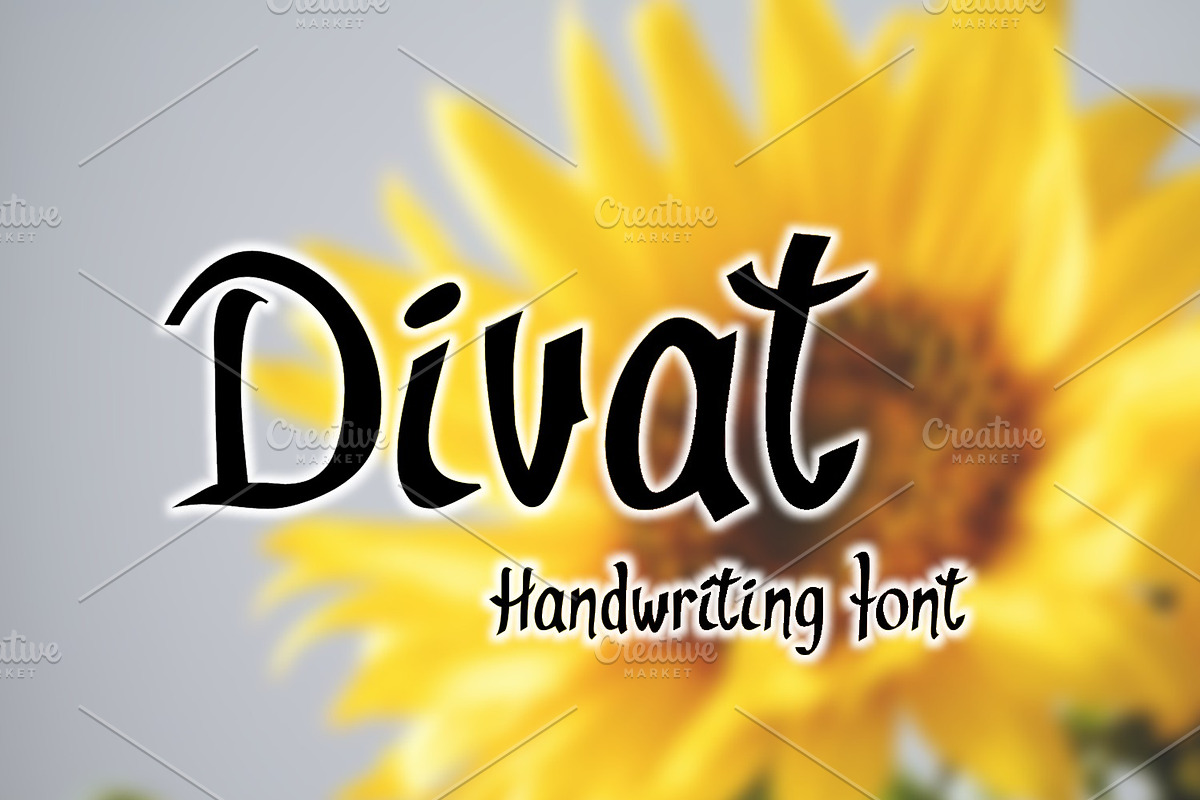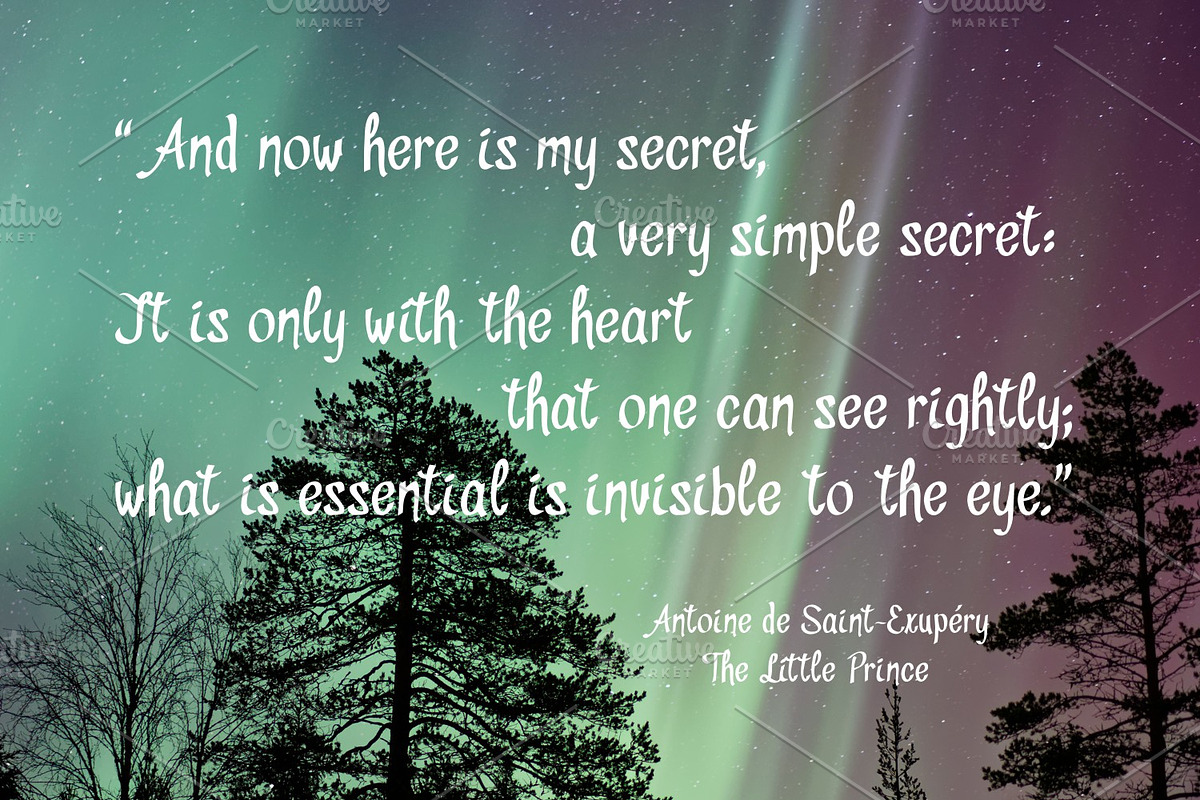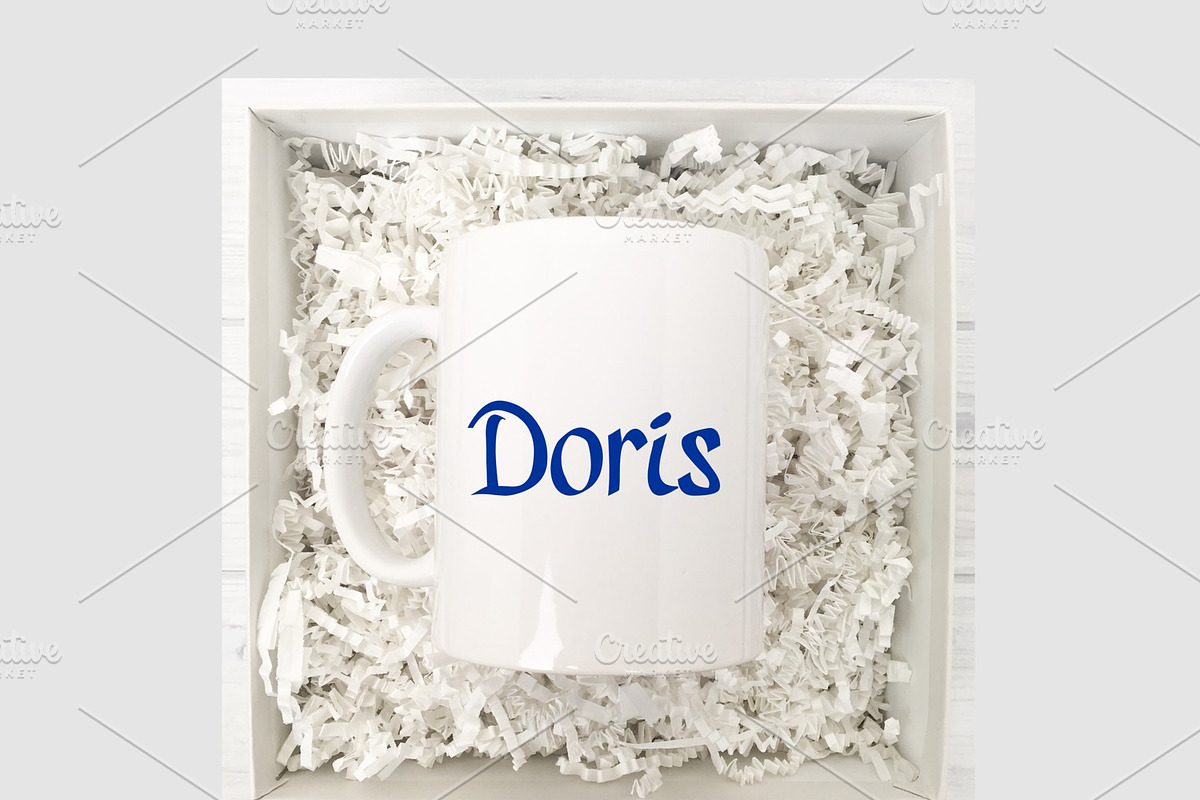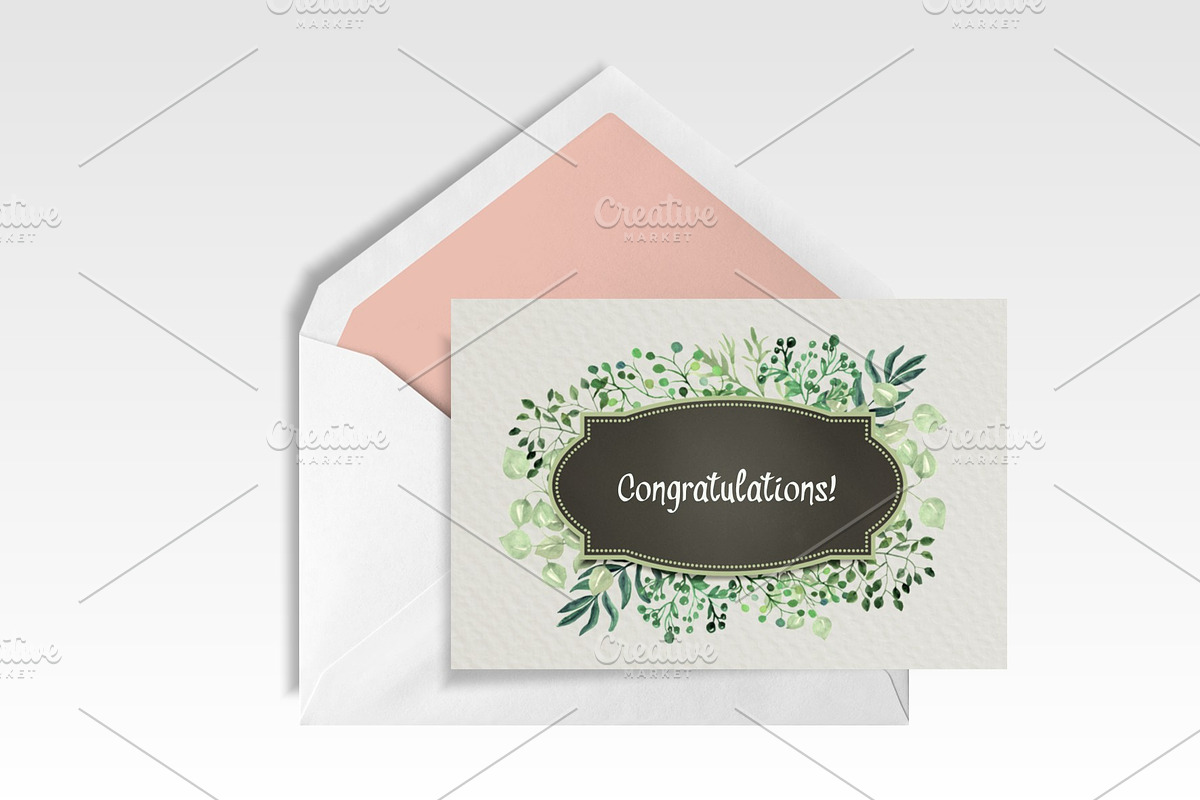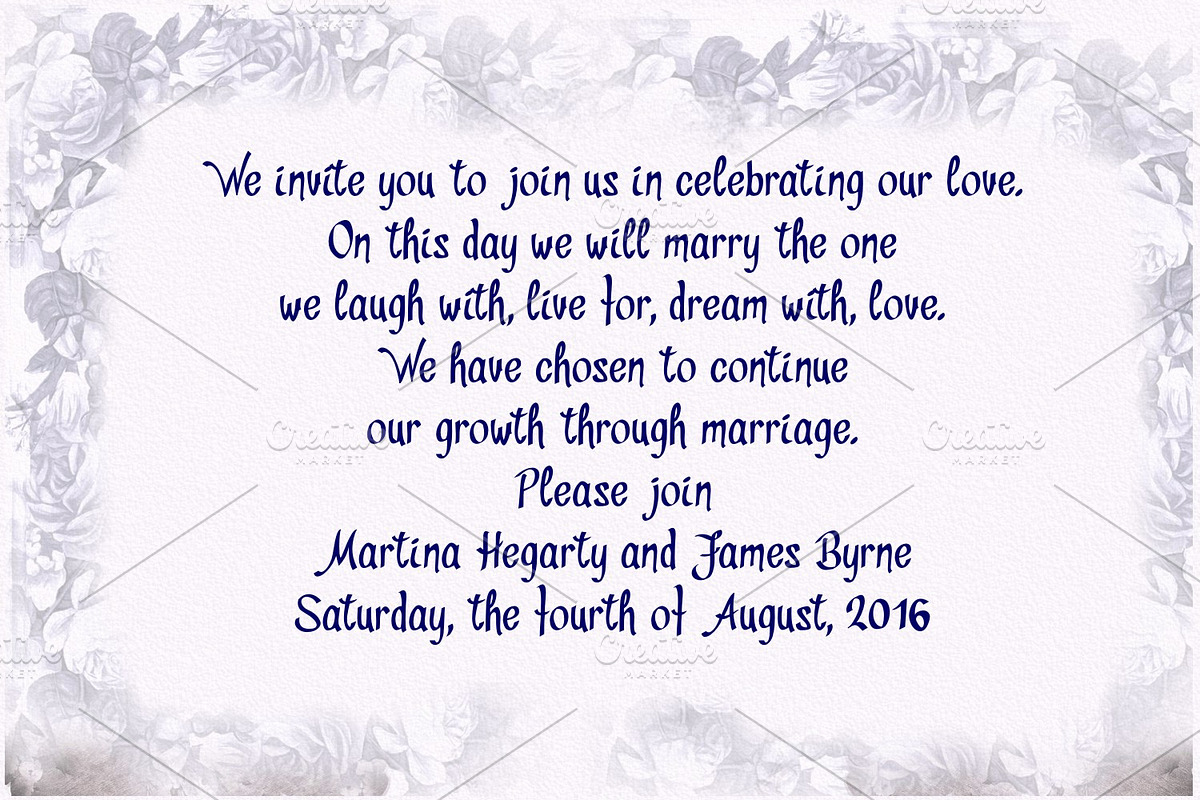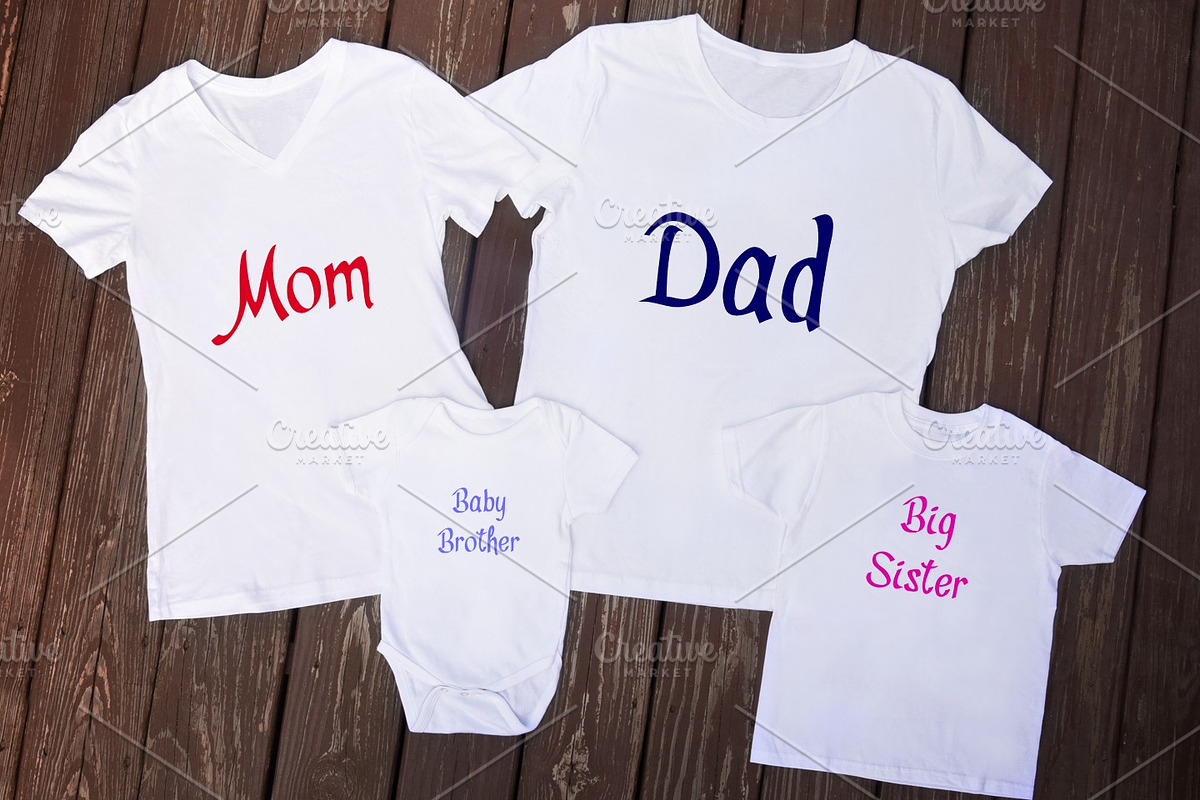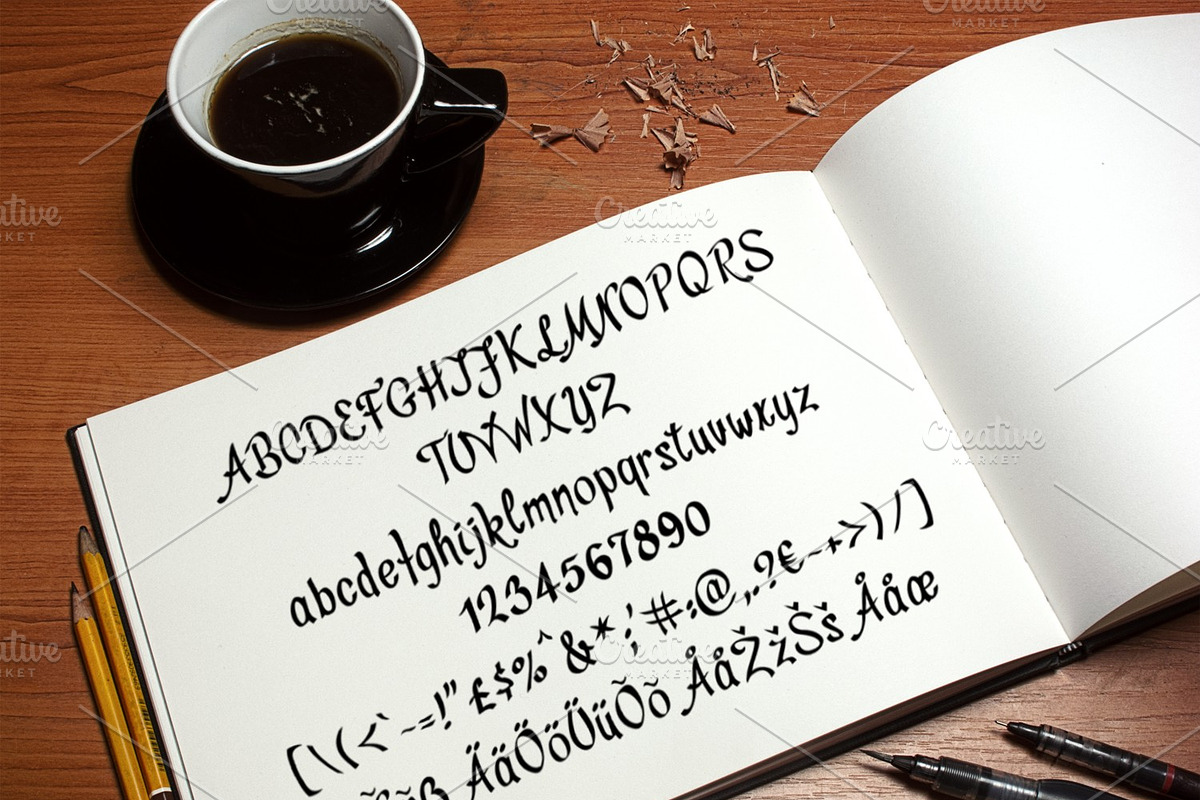
Divat Font
Introducing Divat handwritten typeface.
Multi purpose use as it has upper cases, lower cases (extended with europian characters), numbers, punctuations and currency symbols.
Great for books, flyers, branding, titling, signage, logo, poster, flyers or t-shirts design, headlines, and more!
Divat Font by Digital Typeface Studio fits naturally into Branding, posters, packaging, typography.